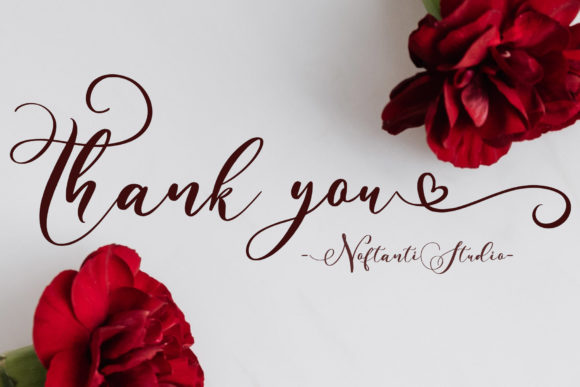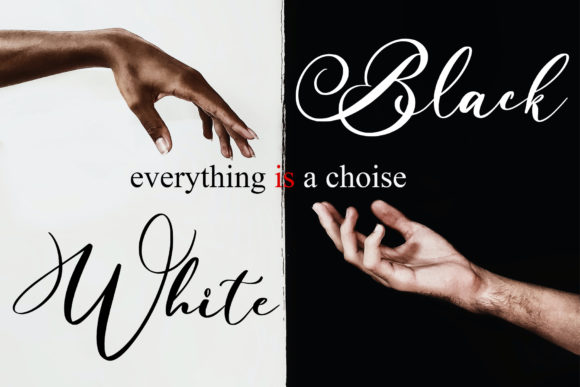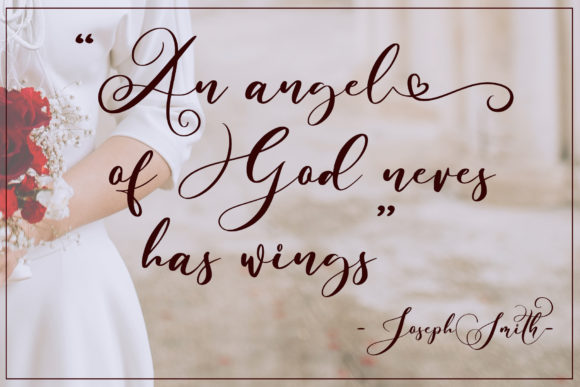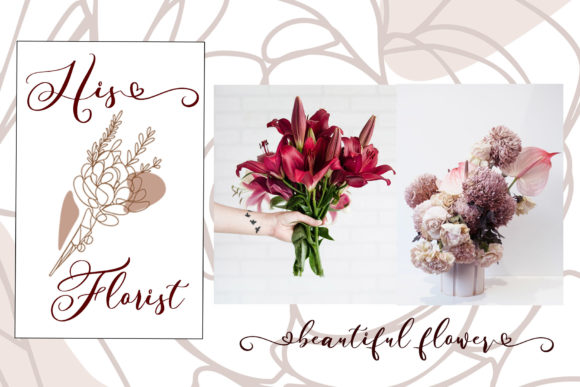
About Billyra Font
Billyra is a delicate and elegant handwritten font. Its distinct and well rounded letters make this font a masterpiece. Fall in love with its incredibly versatile style and use it to create spectacular designs!